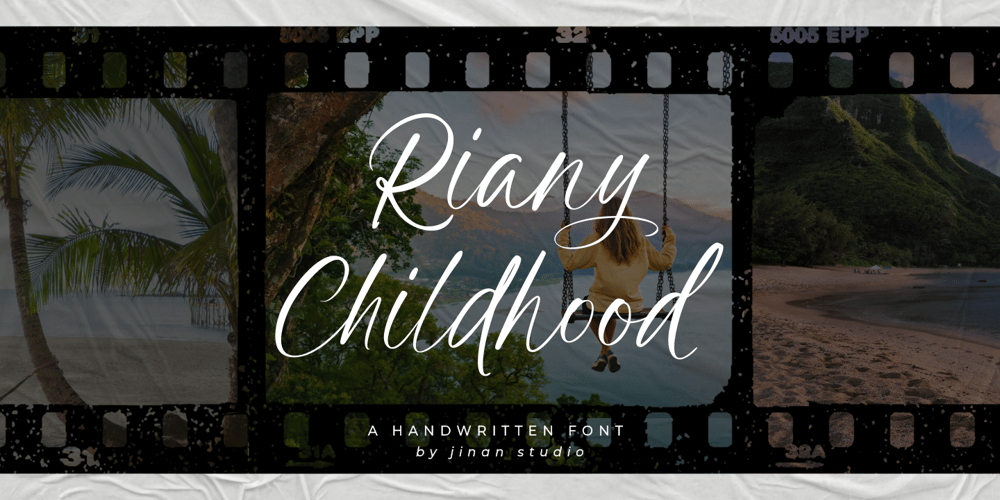
Riany Childhood
Riany Childhood font
Riany Childhood Font Family was designed by Andi Syahdang, Ainun Jinan and published by Jinan Studio. Riany Childhood contains 1 styles and family package options. Immerse yourself in the exquisite beauty of Riany Childhood, a handwritten font radiating charm and personality! Ideal for gracing invitations, greeting cards, logos, and beyond, this organically elegant script infuses a dose of warmth and unique character into your creations. Delightfully capturing the essence of handwritten expressions, Riany Childhood is a harmonious blend of sophistication and simplicity destined to enhance your projects distinctively.Features A set of uppercase and lowercase glyphs Number, symbol, and punctuation Multilingual Support Alternates, ligatures, and swashes PUA encoded Type j_1 until j_4 to features swash, ligatures will automatically replace the standard letter pairs whenever available, when using any OpenType capable software.